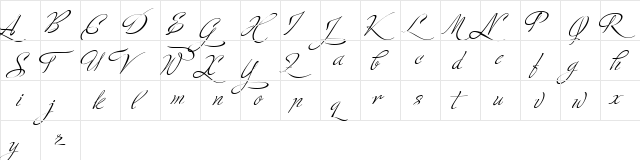
Ministry Script Stylistic HFF Regular
| Foundry | Alejandro Paul |
| Designer | Alejandro Paul |
Design Context for Ministry Script Stylistic HFF Typeface
Ministry Script Stylistic HFF flows with the natural rhythm of handwritten lettering, making it ideal for designs that call for warmth and personal expression.
Font Pairing: Combine Ministry Script Stylistic HFF with a simple geometric sans for maximum contrast — the tension between flowing curves and clean structure is a classic typographic pairing.
Pro Tip: Use Ministry Script Stylistic HFF for short runs of text — names, titles, or taglines. Extended body copy in script faces tires the eye quickly.